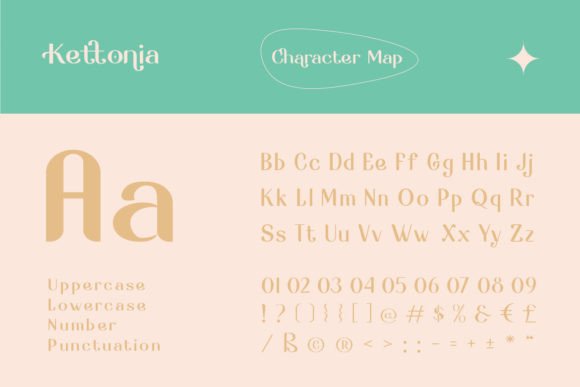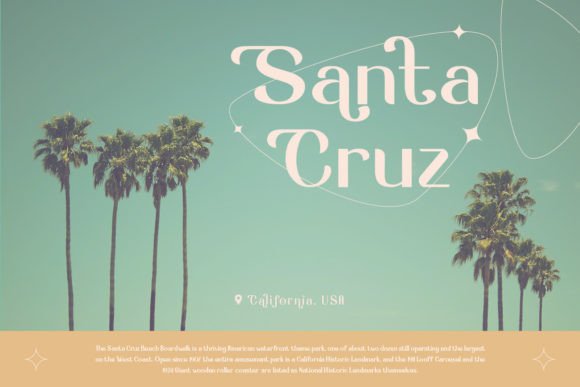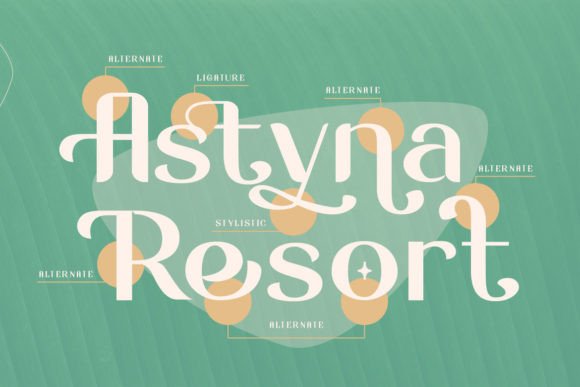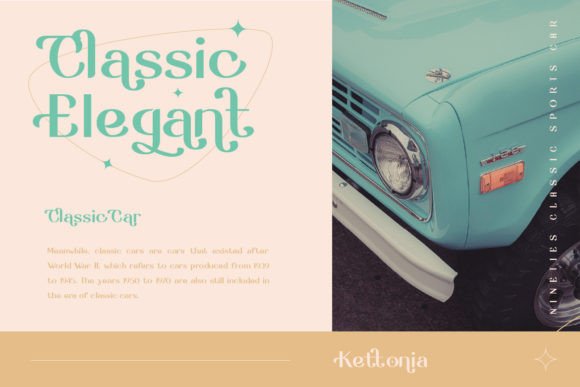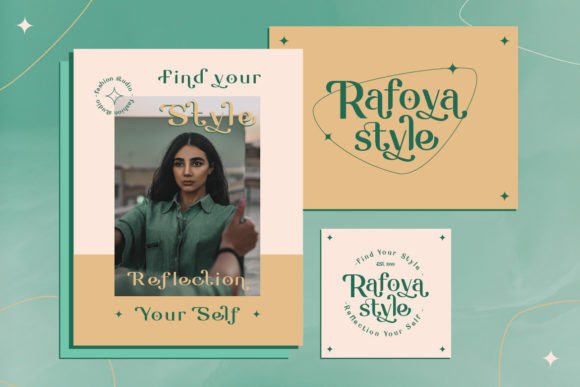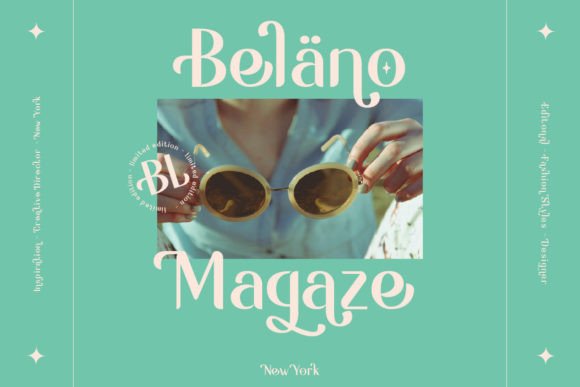
Introduction to Kettonia Font
Imagine you’re working on a creative project, and you’re trying to find the perfect font to make your logo or title stand out. You’ve searched through countless options, but nothing seems quite right. That’s when you stumble upon the Kettonia Font – a modern aesthetic serif font that’s both memorable and stylish. Its unique blend of elegance and sophistication makes it an instant favorite among designers.
The Kettonia Font is more than just a design resource; it’s a valuable asset for any creative project. With its high quality and versatility, it can be used for a wide range of applications, from logo design to social media graphics, and even movie or book titles. Whether you’re working on a short text or a long-form project, the Kettonia Font is sure to impress with its clean lines and transparent background.
Key Features of Kettonia Font
- High-quality, professional design suitable for creative projects and presentations.
- Translucent and transparent background options for a modern and sleek design.
- Perfect design resource for designers and artists working on digital art and creative projects.
- Available in a range of sizes and resolutions, ideal for use in various design applications.
- Unique, elegant, and sophisticated design style that adds a touch of sophistication to any creative project.
Honest Review: Kettonia Font
As a designer, I’m always on the lookout for high-quality design resources that can elevate my creative projects. Recently, I stumbled upon the Kettonia Font, and I’m excited to share my honest review.
- Unique and creative design aesthetic: The Kettonia Font has a distinct, hand-drawn feel that sets it apart from more generic fonts.
- High-quality vectors: The font files are well-crafted and scalable, making them perfect for use in various design contexts.
- Transparency issues: The font’s transparent background can sometimes make it difficult to use on complex designs with busy backgrounds.
- Limited character set: The font’s character set is relatively small, which may limit its usability for certain design projects.
Overall, the Kettonia Font is a solid design resource that can add a touch of creativity to your projects. While it has some limitations, its unique design aesthetic and high-quality vectors make it a worthwhile addition to your design arsenal.
To get the most out of the Kettonia Font, use it in combination with a transparent background to create a unique and eye-catching design. You can also experiment with different font sizes and styles to add visual interest to your design.
The Kettonia Font is ideal for a wide range of creative projects, including logos, business cards, and social media graphics. It’s also perfect for creating a consistent brand identity across all your marketing materials.